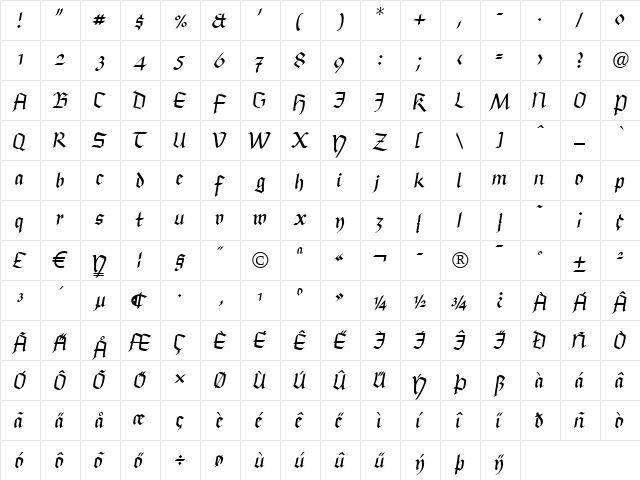
BuckinghamFraktur LT Regular
Design Context for BuckinghamFraktur LT Typeface
BuckinghamFraktur LT channels the dramatic heritage of Fraktur and Gothic scripts, bringing a sense of historical gravitas to any design. The delicate stroke weight brings airiness and refinement to layouts.
A natural fit for music packaging, gothic editorial design, and any project that needs historical weight.
Font Pairing: Pair with a clean neutral sans-serif for body copy to let BuckinghamFraktur LT's character lead without overwhelming the composition.
Pro Tip: Reserve BuckinghamFraktur LT for display and logo use — pair it with a clean sans-serif for body copy to prevent the composition from feeling oppressive.